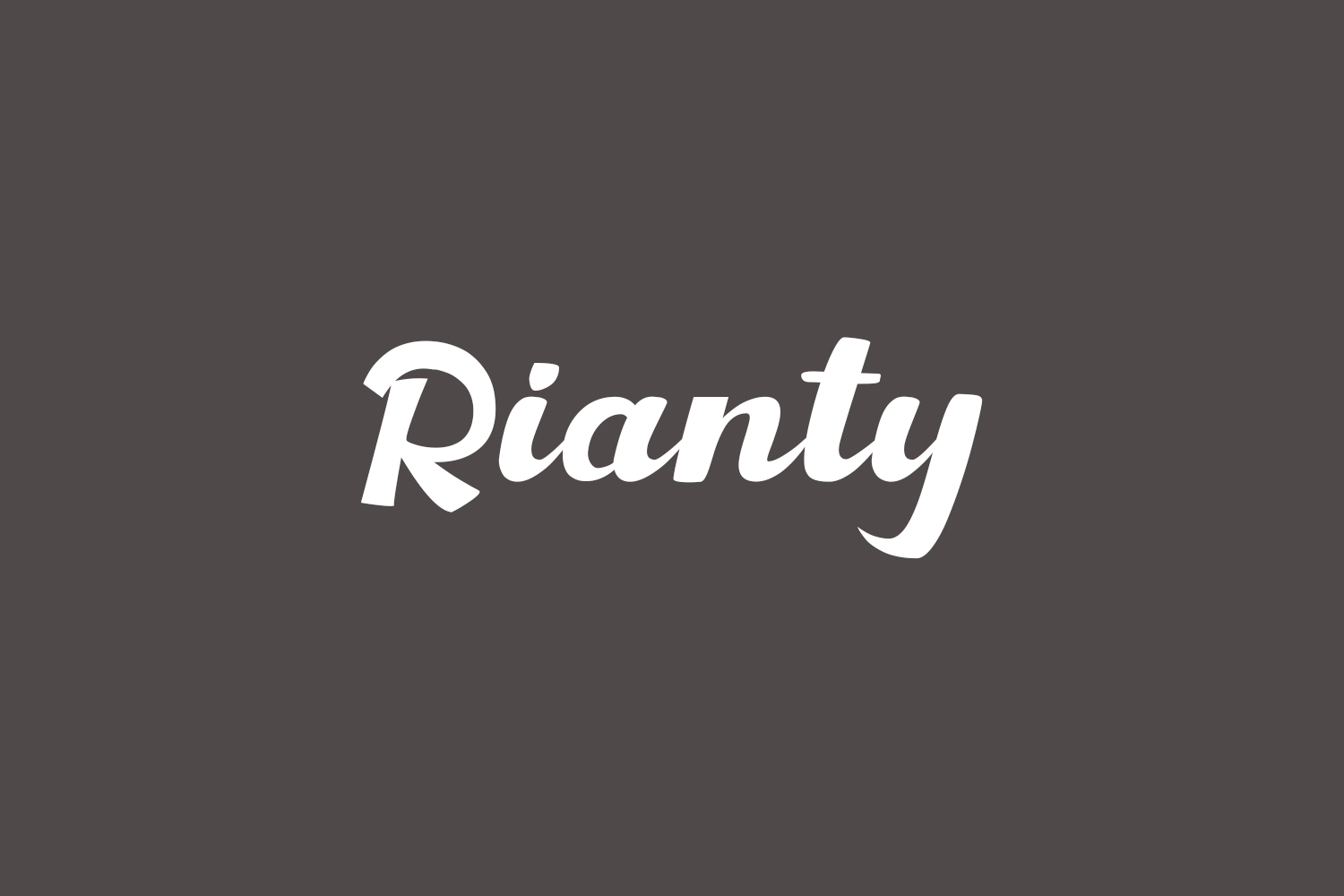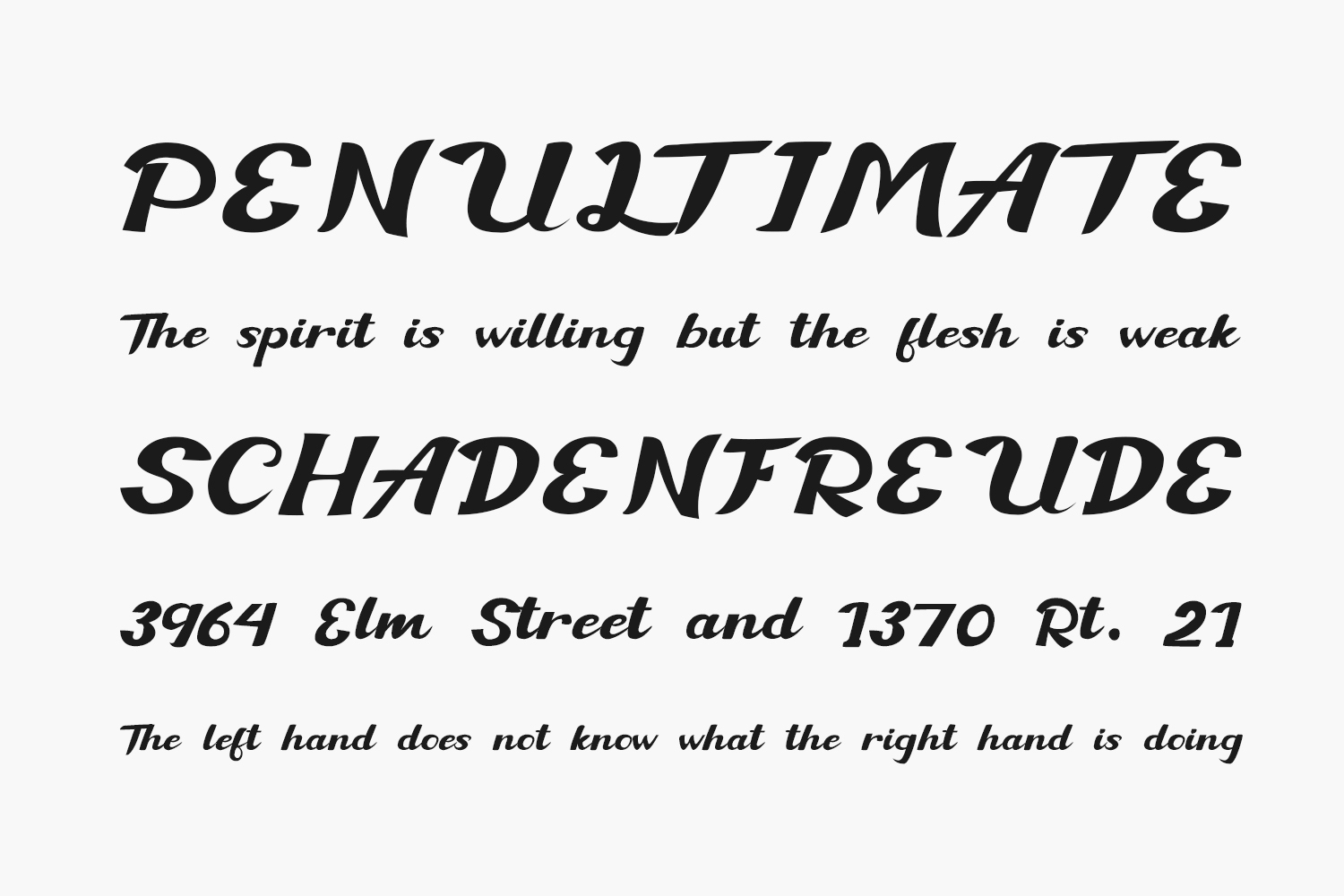
Rianty Free Font is an elegant and dainty handwritten font that features sweet and delicate swashes. This original look will appeal to a wide range of crafty ideas, from letterheads and titles to stationery. Rianty Free Font was designed by Rissyletter Studio and is free for personal use only. Please purchase the full version for commercial use.